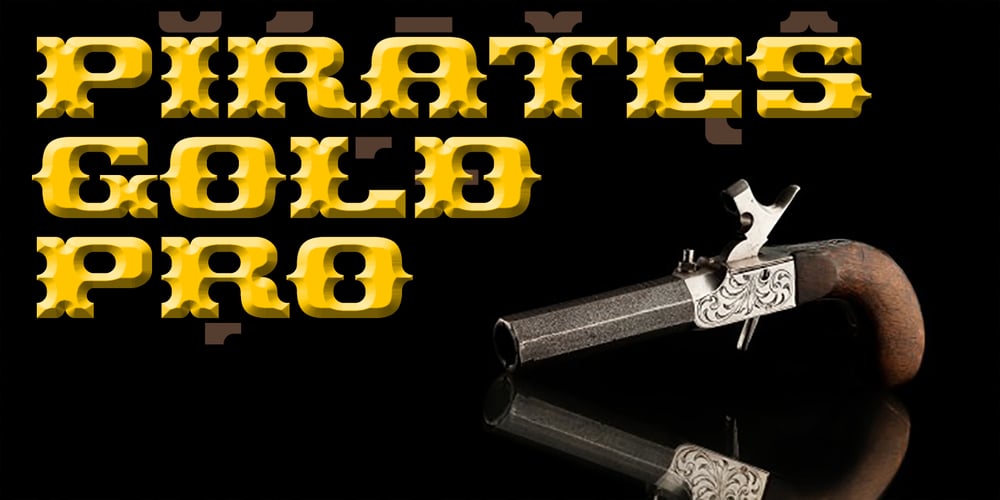
Pirates Gold Pro
Pirates Gold Pro font
Pirates Gold Pro Font Family was designed by Roger S. Nelsson, Levente Halmos and published by CheapProFonts. Pirates Gold Pro contains 1 styles and family package options. This stylish swashbuckling typeface had a very limited character set, but with the CheapProFonts treatment this buried treasure is ready to be rediscovered. Character map included. “Arrr! Shiver me timbers!” ALL fonts from CheapProFonts have very extensive language support: They contain some unusual diacritic letters (some of which are contained in the Latin Extended-B Unicode block) supporting: Cornish, Filipino (Tagalog), Guarani, Luxembourgian, Malagasy, Romanian, Ulithian and Welsh. They also contain all glyphs in the Latin Extended-A Unicode block (which among others cover the Central European and Baltic areas) supporting: Afrikaans, Belarusian (Lacinka), Bosnian, Catalan, Chichewa, Croatian, Czech, Dutch, Esperanto, Greenlandic, Hungarian, Kashubian, Kurdish (Kurmanji), Latvian, Lithuanian, Maltese, Maori, Polish, Saami (Inari), Saami (North), Serbian (latin), Slovak(ian), Slovene, Sorbian (Lower), Sorbian (Upper), Turkish and Turkmen. And they of course contain all the usual “western” glyphs supporting: Albanian, Basque, Breton, Chamorro, Danish, Estonian, Faroese, Finnish, French, Frisian, Galican, German, Icelandic, Indonesian, Irish (Gaelic), Italian, Northern Sotho, Norwegian, Occitan, Portuguese, Rhaeto-Romance, Sami (Lule), Sami (South), Scots (Gaelic), Spanish, Swedish, Tswana, Walloon and Yapese.